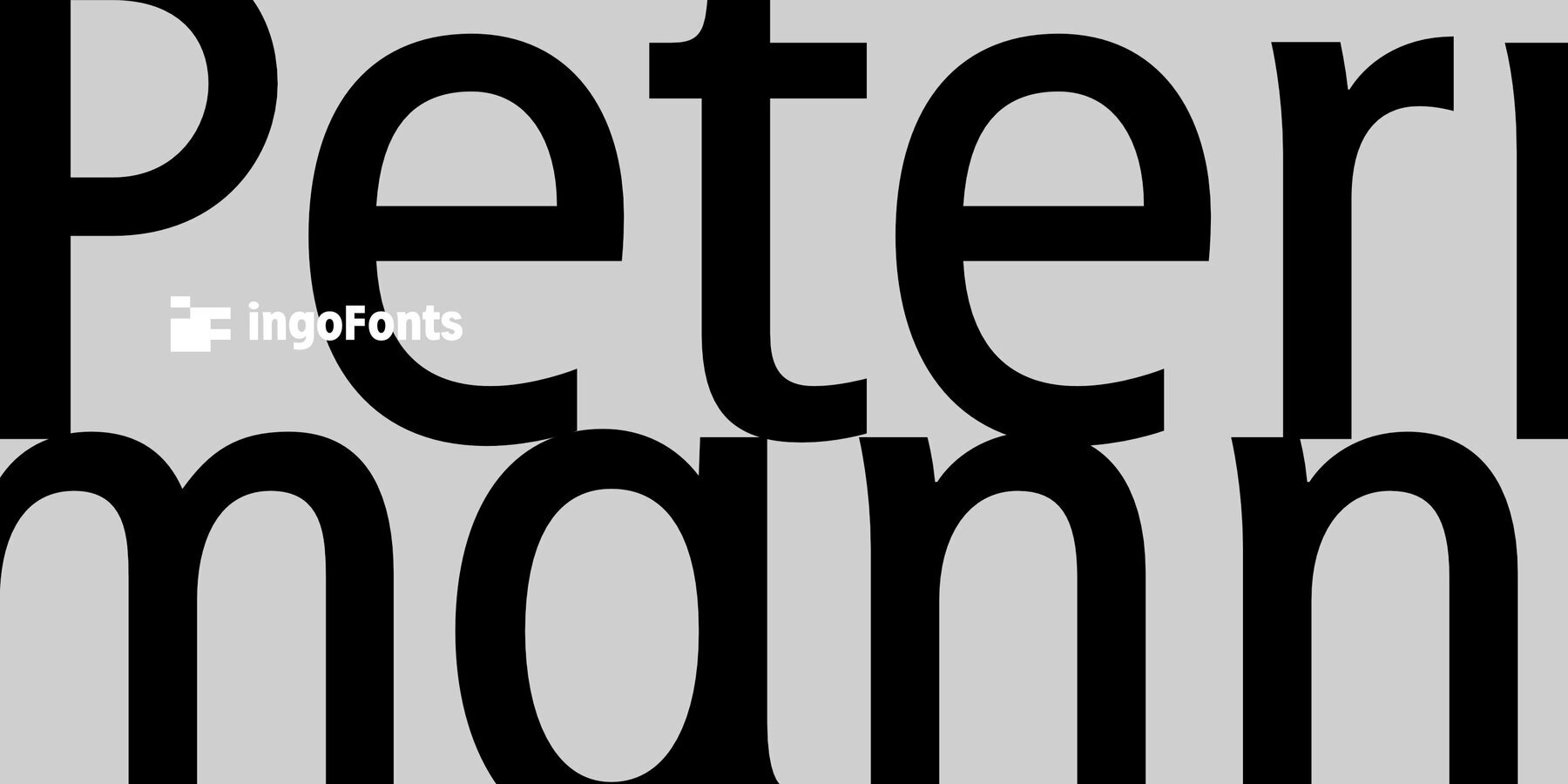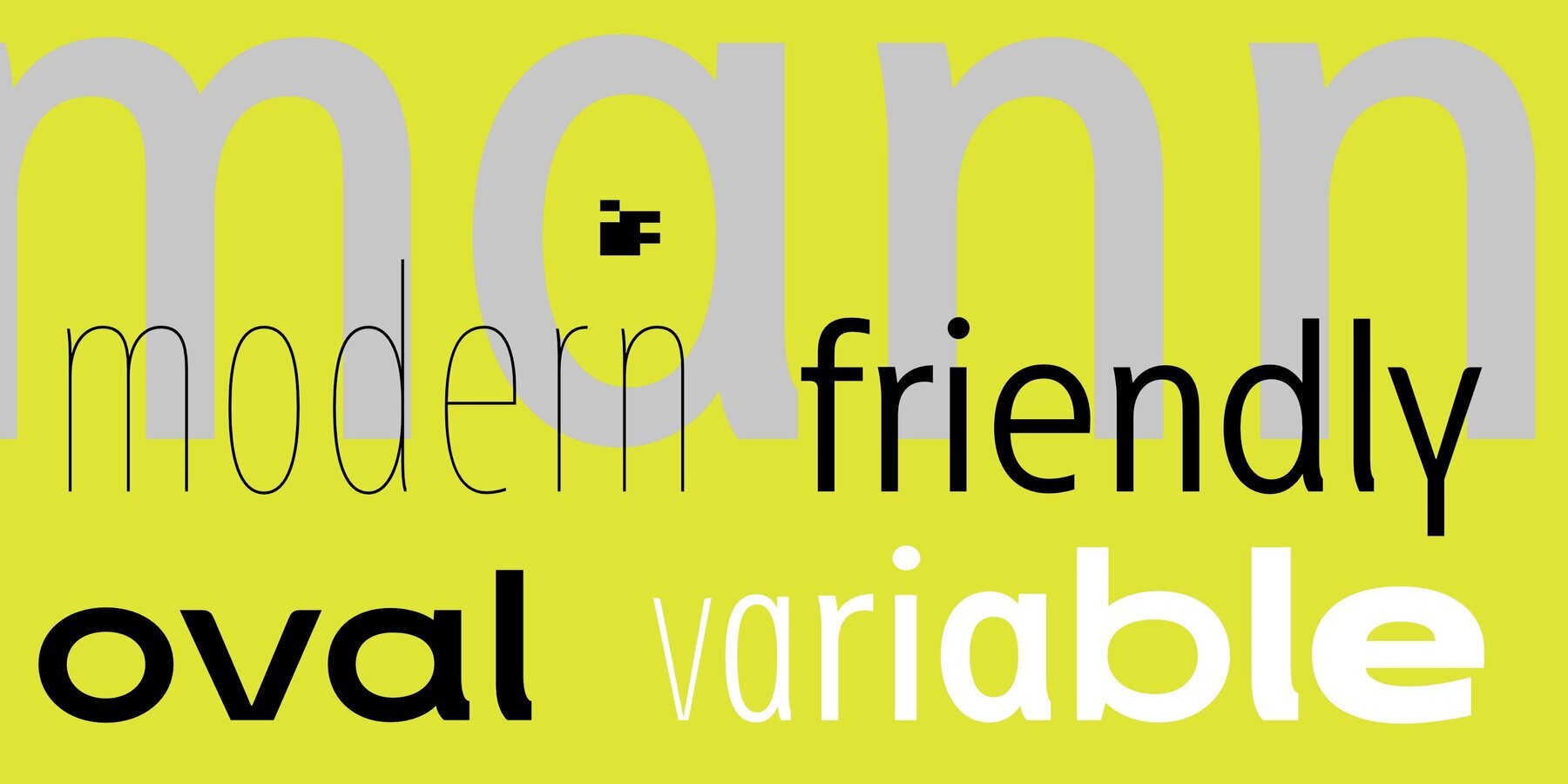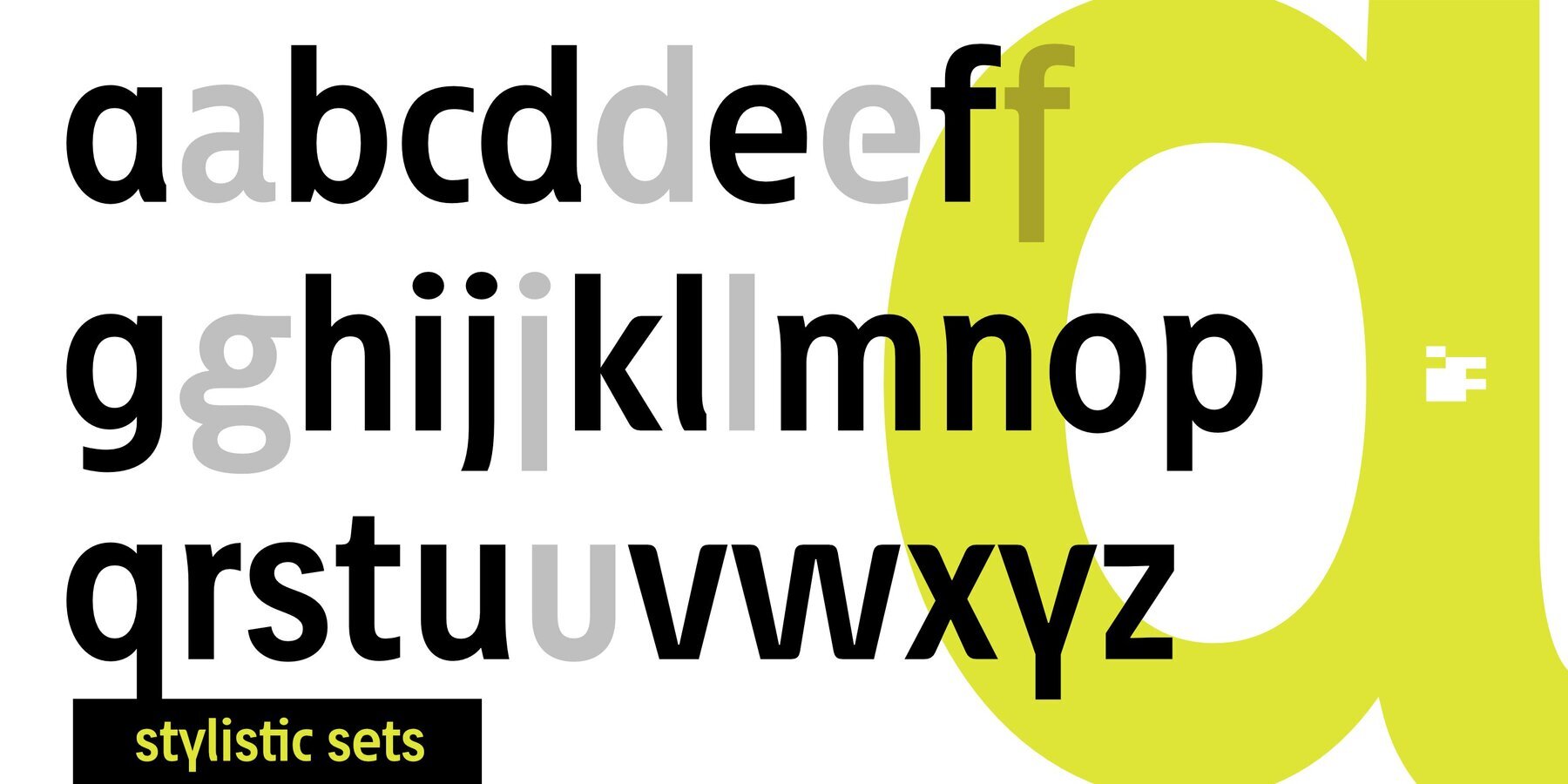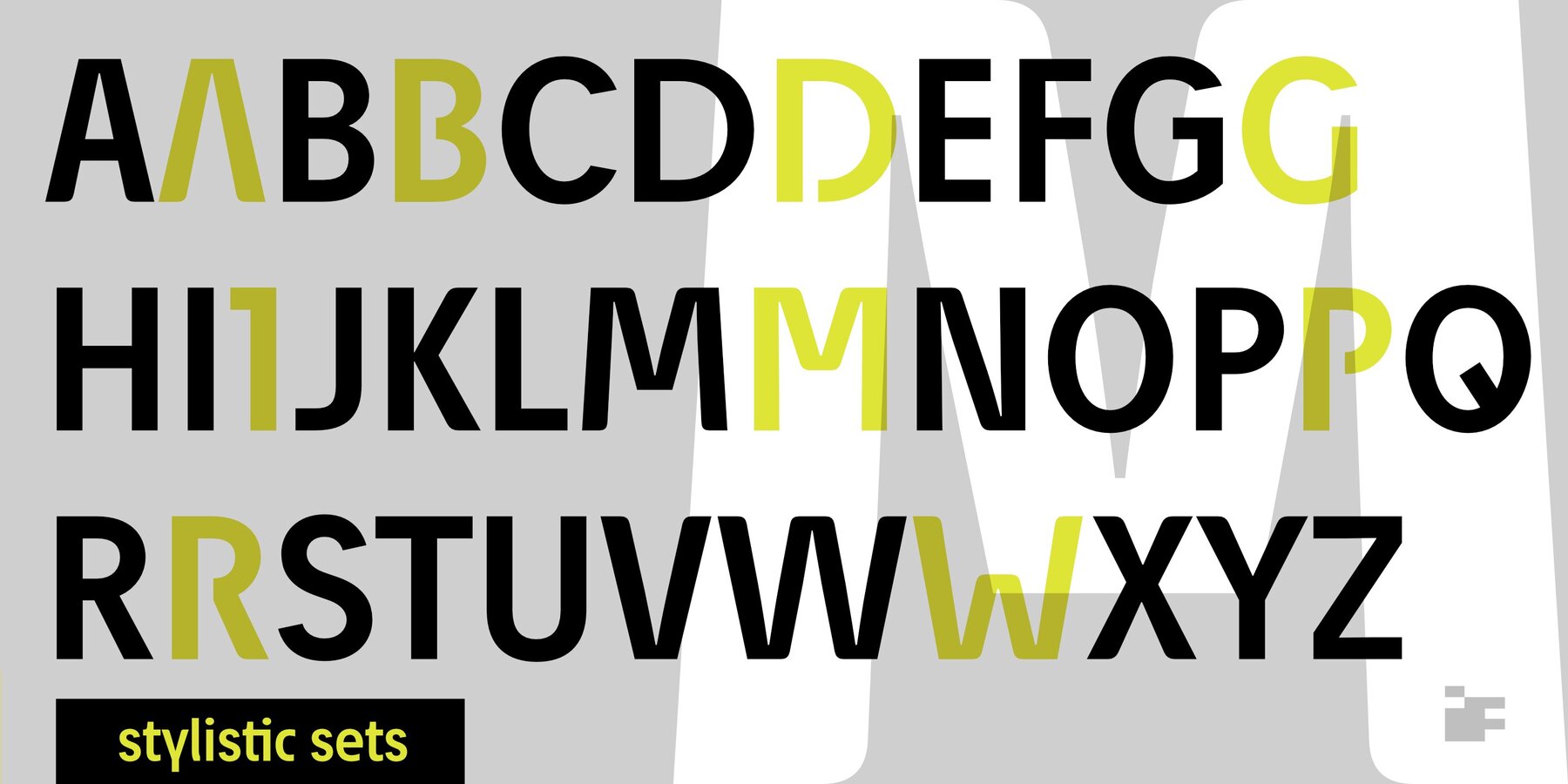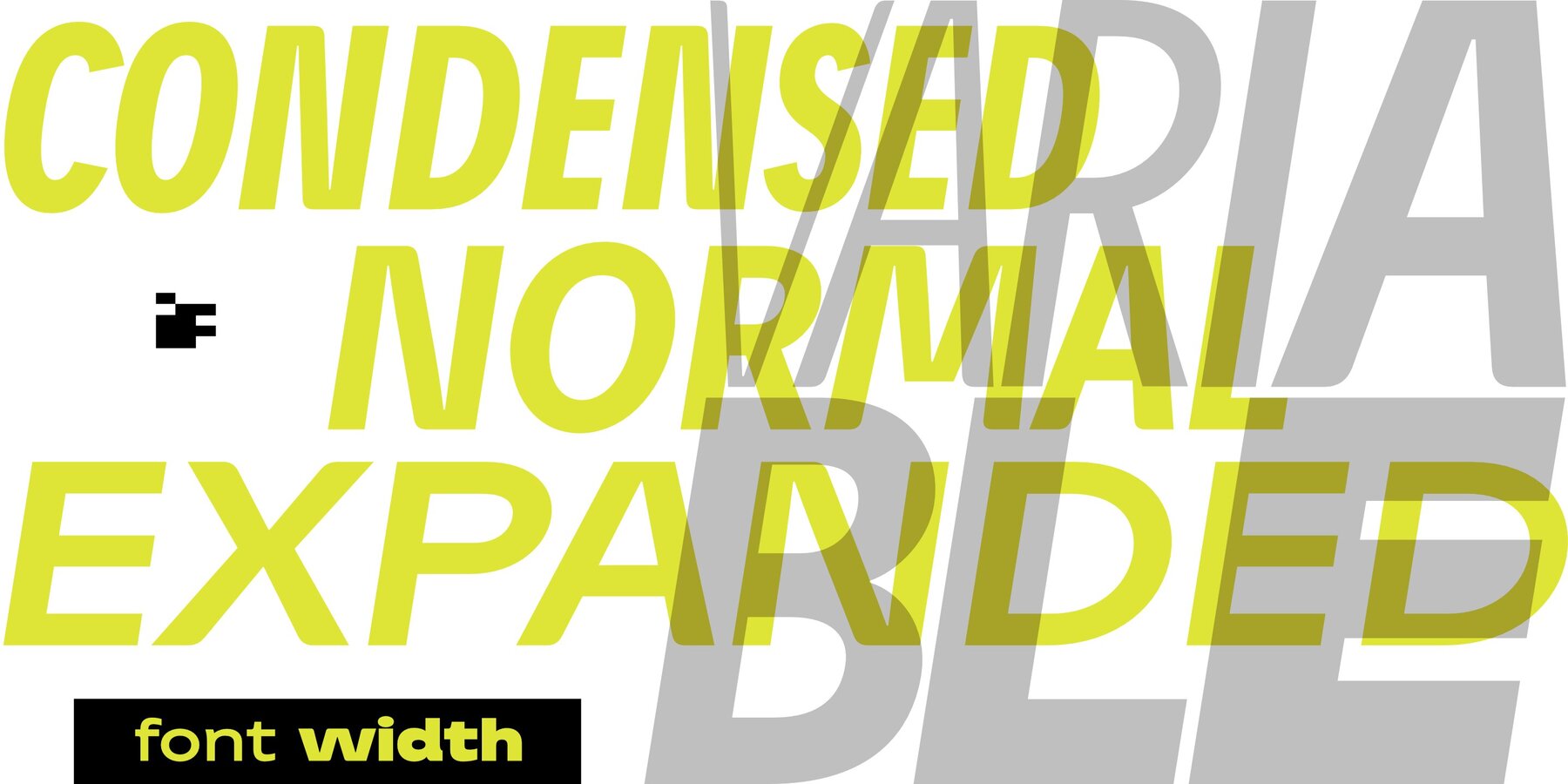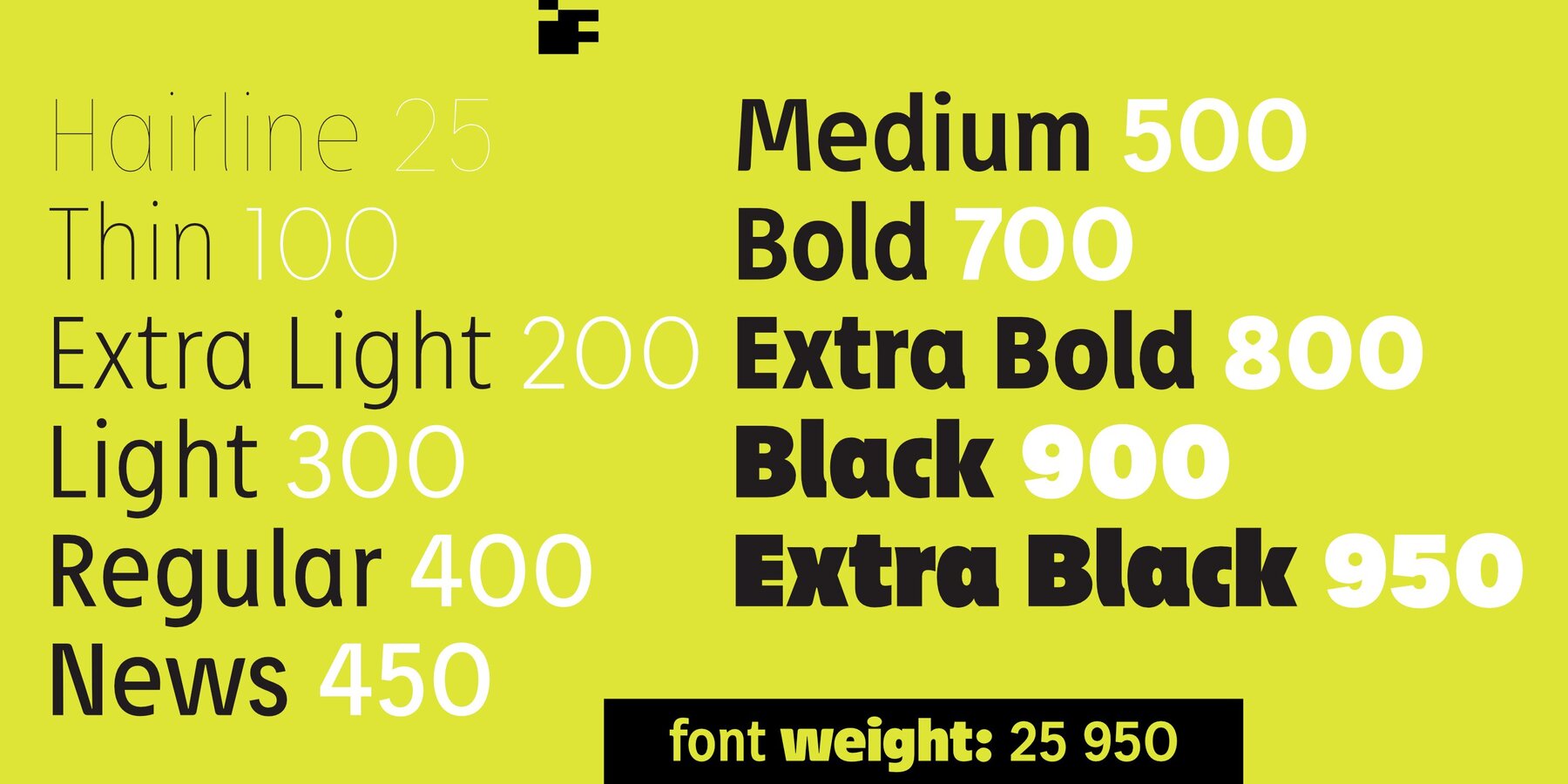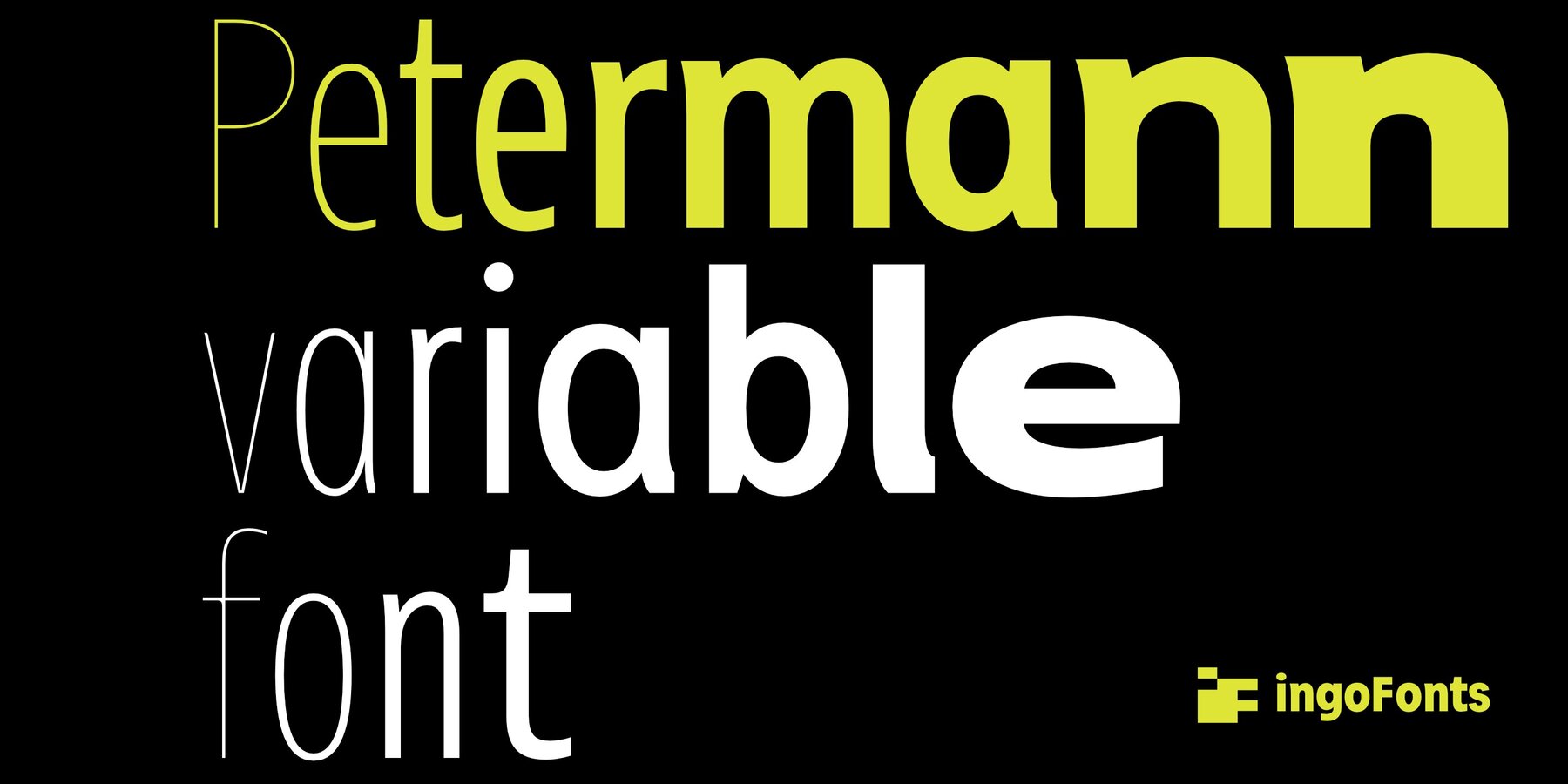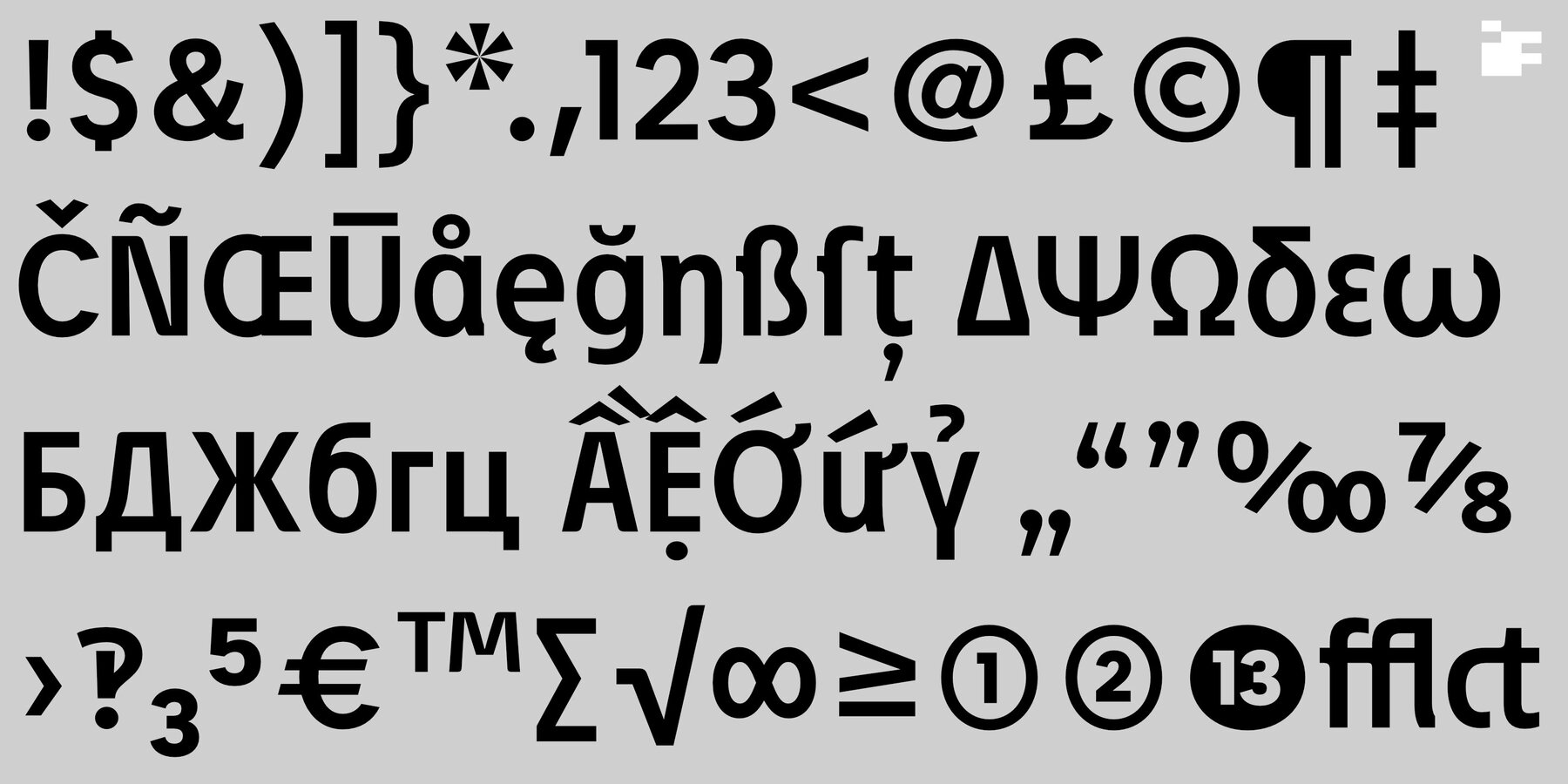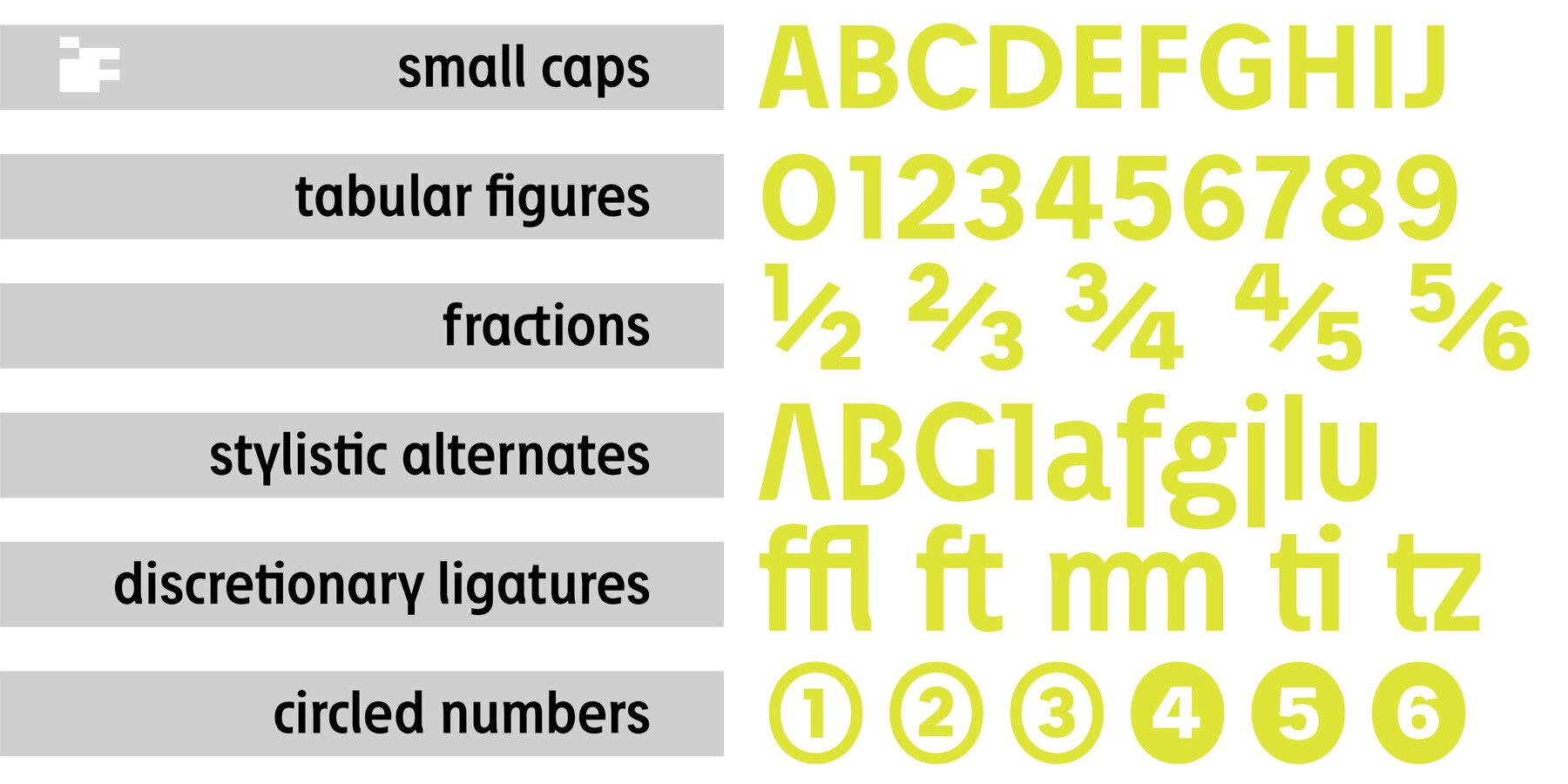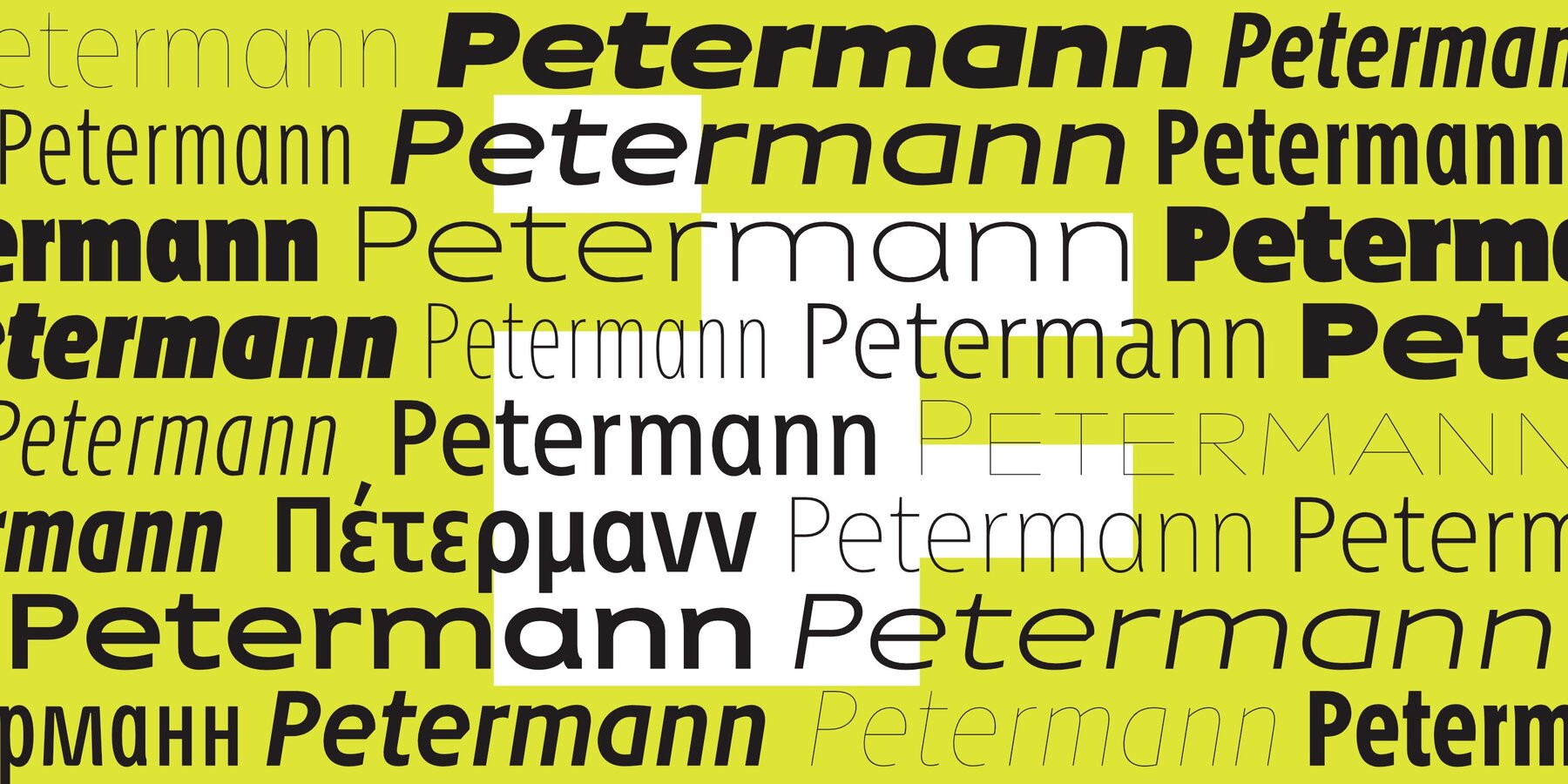
Petermann Font
There are alternative designs for several letters, to give the typeface a completely different overall impression. Numerous ligatures also enrich the possibilities of Petermann.